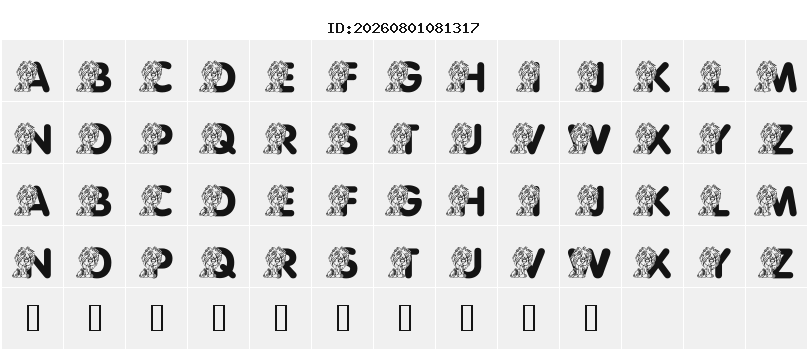
LMS Cute Cub Preview
• Font Name: LMS Cute Cub
About LMS Cute Cub.ttf
LMS Cute Cub.ttf is a modern, elegant sans-serif font designed for ultimate readability and visual harmony. Perfect for branding, headlines, web design, and print materials.